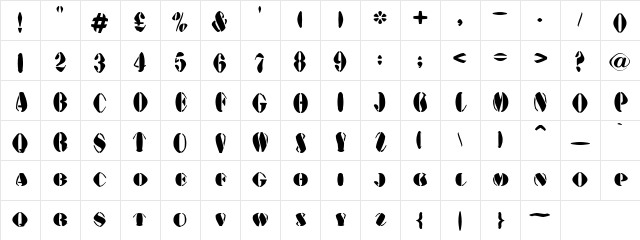
AustralianFlyingCorpsStencilA borrows the utilitarian aesthetic of stencil lettering, with its characteristic cutaways and no-frills construction lending an industrial edge.
Pro Tip: Use AustralianFlyingCorpsStencilA at large sizes on packaging, posters, or apparel where the stencil cutaways read clearly. Avoid small sizes where those gaps become visual noise.